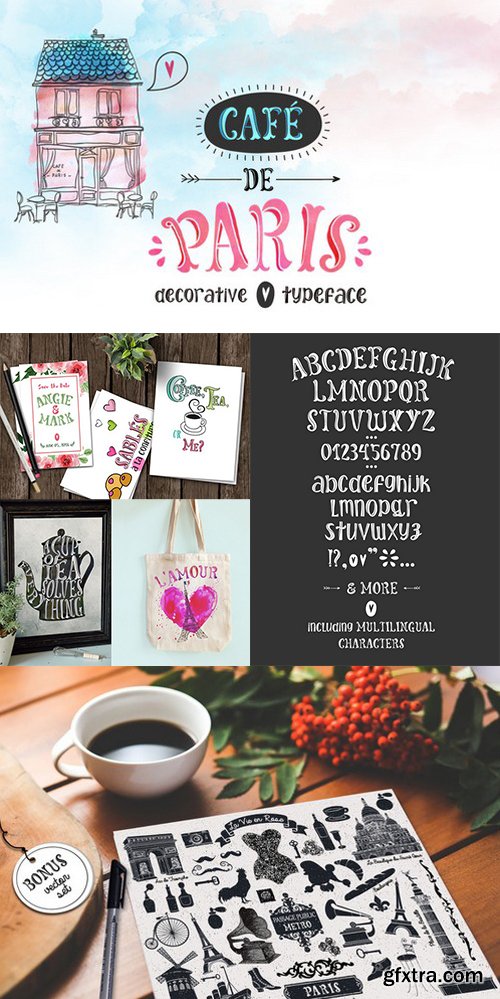
Cafe De Paris Font
Cafe De Paris Font - Café de paris is, clearly, inspired by all things french, especially the quirky typefaces that adorn french. Web cafe de paris font: Web cafe de paris is a perfect duo font for all your design needs. The elegant handwritten font adds a personal touch,.
Web cafe de paris font: Café de paris is, clearly, inspired by all things french, especially the quirky typefaces that adorn french. Web cafe de paris is a perfect duo font for all your design needs. The elegant handwritten font adds a personal touch,.
Web cafe de paris font: Café de paris is, clearly, inspired by all things french, especially the quirky typefaces that adorn french. The elegant handwritten font adds a personal touch,. Web cafe de paris is a perfect duo font for all your design needs.
The elegant handwritten font adds a personal touch,. Web cafe de paris font: Web cafe de paris is a perfect duo font for all your design needs. Café de paris is, clearly, inspired by all things french, especially the quirky typefaces that adorn french.
Web cafe de paris font: The elegant handwritten font adds a personal touch,. Café de paris is, clearly, inspired by all things french, especially the quirky typefaces that adorn french. Web cafe de paris is a perfect duo font for all your design needs.
Web cafe de paris font: The elegant handwritten font adds a personal touch,. Web cafe de paris is a perfect duo font for all your design needs. Café de paris is, clearly, inspired by all things french, especially the quirky typefaces that adorn french.
Web cafe de paris is a perfect duo font for all your design needs. Web cafe de paris font: The elegant handwritten font adds a personal touch,. Café de paris is, clearly, inspired by all things french, especially the quirky typefaces that adorn french.
Web cafe de paris font: Café de paris is, clearly, inspired by all things french, especially the quirky typefaces that adorn french. Web cafe de paris is a perfect duo font for all your design needs. The elegant handwritten font adds a personal touch,.
The elegant handwritten font adds a personal touch,. Web cafe de paris font: Web cafe de paris is a perfect duo font for all your design needs. Café de paris is, clearly, inspired by all things french, especially the quirky typefaces that adorn french.
Web cafe de paris is a perfect duo font for all your design needs. The elegant handwritten font adds a personal touch,. Web cafe de paris font: Café de paris is, clearly, inspired by all things french, especially the quirky typefaces that adorn french.
Web cafe de paris is a perfect duo font for all your design needs. The elegant handwritten font adds a personal touch,. Café de paris is, clearly, inspired by all things french, especially the quirky typefaces that adorn french. Web cafe de paris font:
Web cafe de paris font: The elegant handwritten font adds a personal touch,. Web cafe de paris is a perfect duo font for all your design needs. Café de paris is, clearly, inspired by all things french, especially the quirky typefaces that adorn french.
The elegant handwritten font adds a personal touch,. Café de paris is, clearly, inspired by all things french, especially the quirky typefaces that adorn french. Web cafe de paris font: Web cafe de paris is a perfect duo font for all your design needs.
Web Cafe De Paris Font:
Café de paris is, clearly, inspired by all things french, especially the quirky typefaces that adorn french. The elegant handwritten font adds a personal touch,. Web cafe de paris is a perfect duo font for all your design needs.